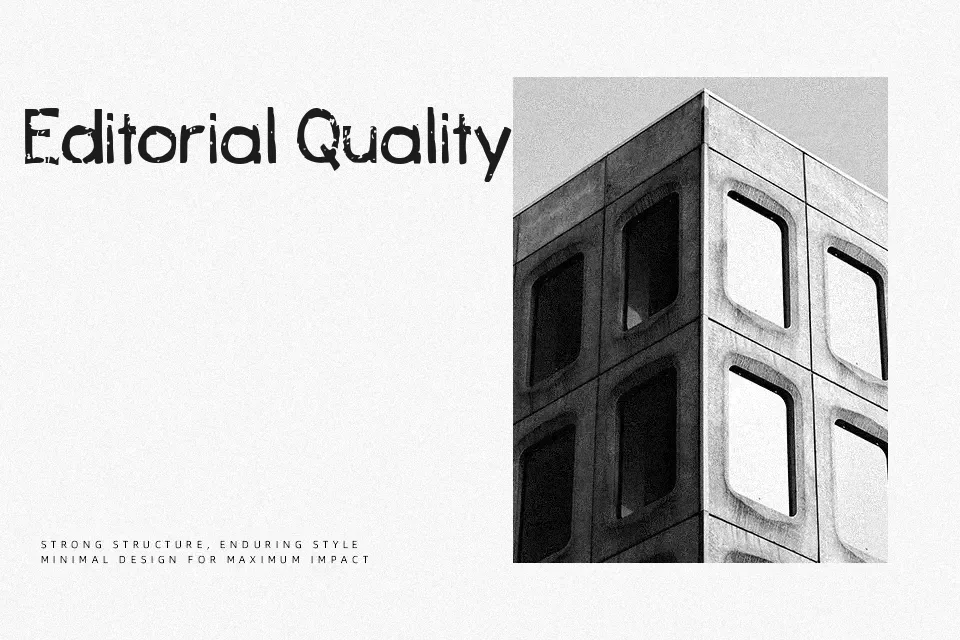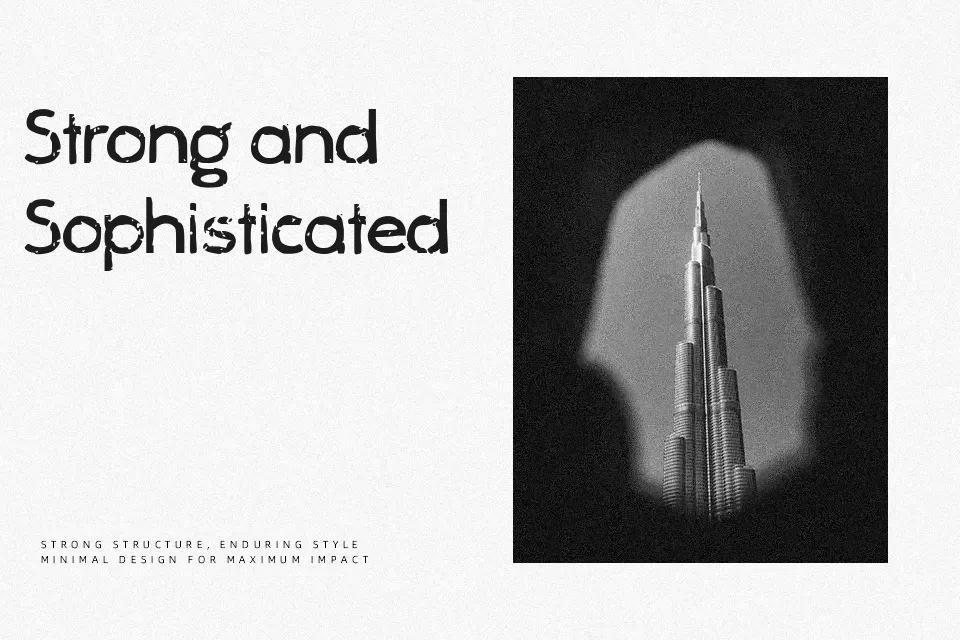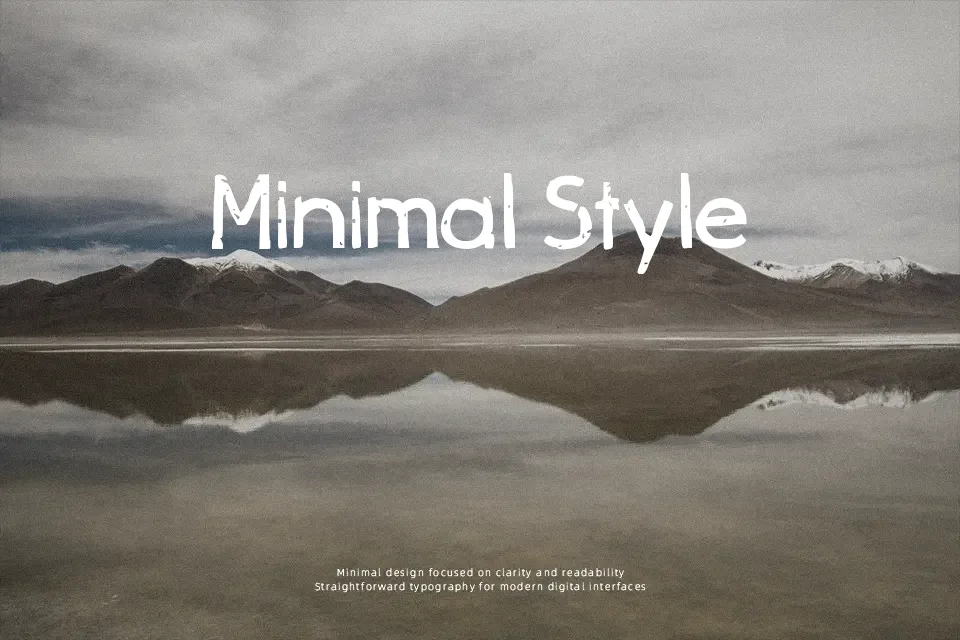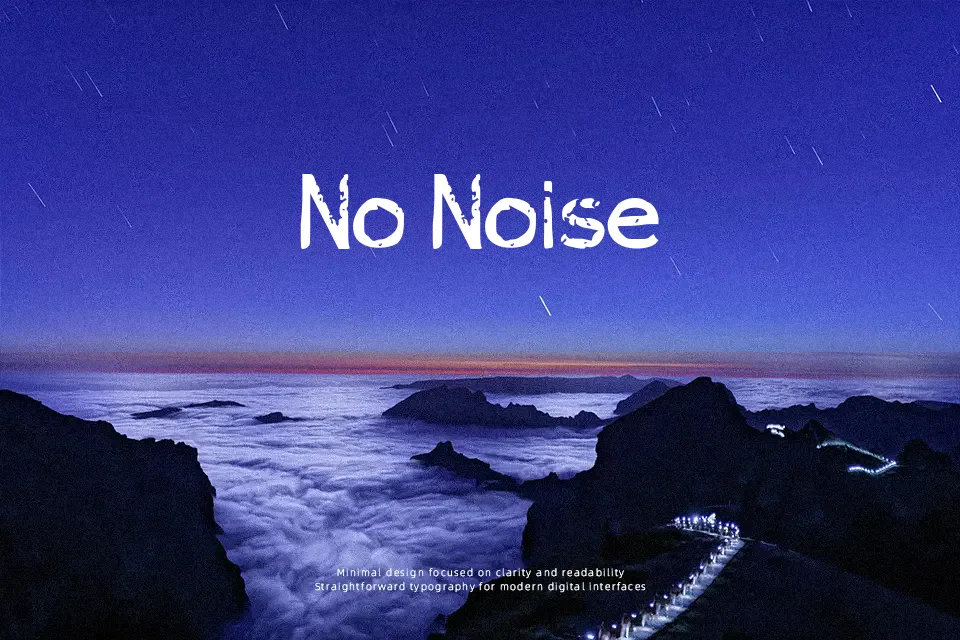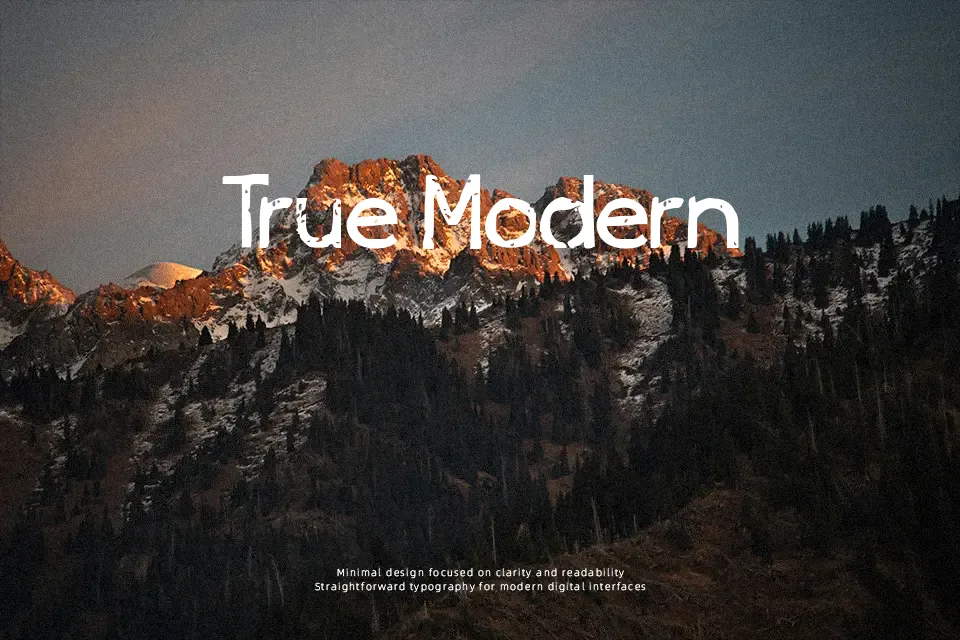
Albatross Font
Albatross carries a rough-around-the-edges quality that makes it stand out in display contexts. The letterforms are sans serif at their core, but an eroded, distressed texture across the strokes creates a worn, organic feel — closer to screen-printed type than clean digital geometry. It has manual kerning and covers the Roman alphabet, numerals, and a selection of extended characters, totaling 338–341 glyphs. In practice, it works well for music event posters, streetwear branding, or any headline that benefits from a human, worn-in look. That same texture becomes a liability at smaller sizes — legibility drops quickly below 18pt. Long body text is entirely off the table; this font was built for impact at scale, not readability across paragraphs.
Best For:- Music and concert poster headlines
– Streetwear or apparel brand logos
– Vintage-style packaging headers
– Graphic design mockups and short display text
Not Ideal For:- Body text or extended reading
– Corporate or formal documents
– Small-size applications below 18pt
– Digital UI labels or navigation text
Perfect for advertising, branding, and headline, with a bold and decorative style.